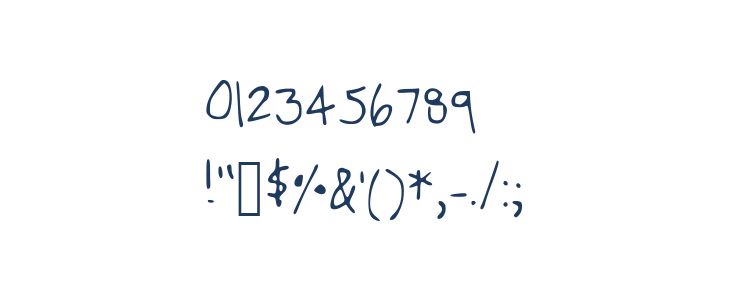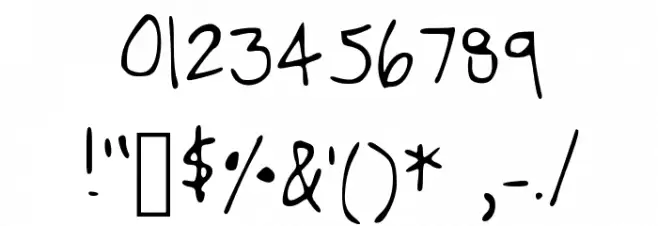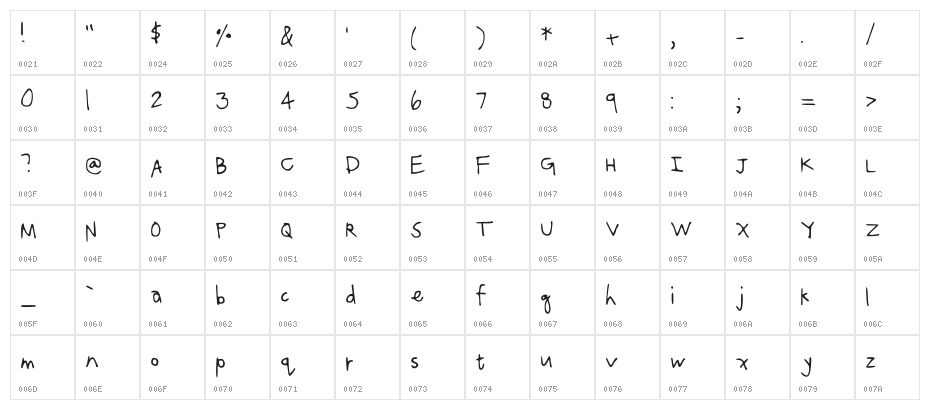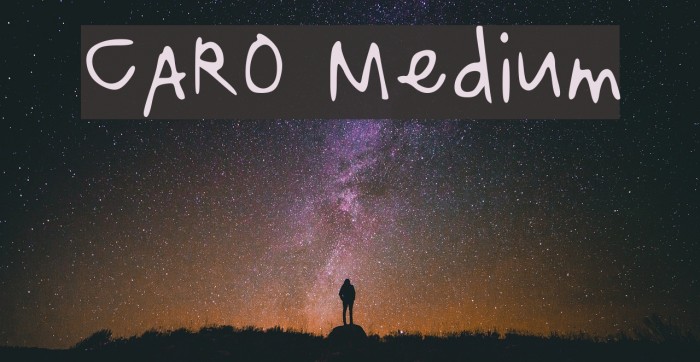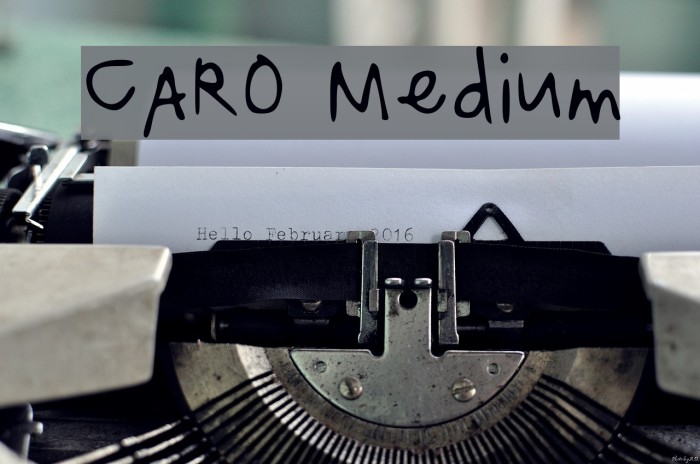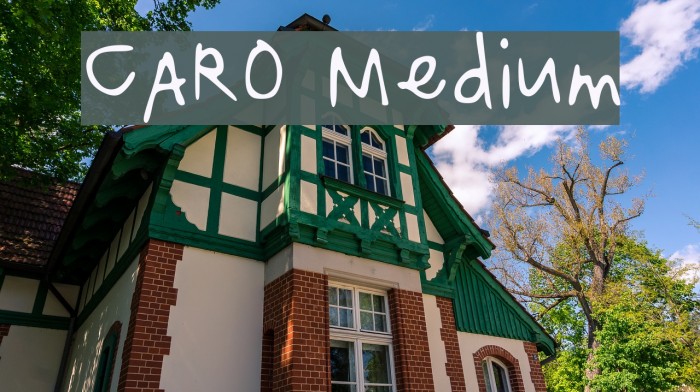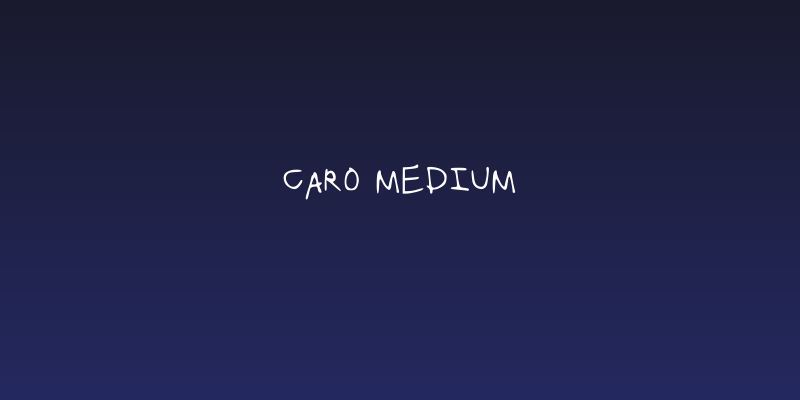
CARO Medium Font
CARO Medium Description
This font features a playful and casual handwritten style, characterized by its irregular strokes and slightly uneven baseline. The letters have a natural flow, mimicking the look of handwriting with a personal touch. The uppercase and lowercase letters maintain a consistent style, with rounded edges and a friendly appearance. The numerals and special characters follow the same informal aesthetic, making the font suitable for projects that require a human and approachable feel. Its legibility is maintained despite the informal style, making it versatile for various uses.
A playful, handwritten font with a casual and friendly style from Handwritten fonts.
- Proposed Projects: Ideal for greeting cards, personal blogs, children's books, and informal branding.
- Overall Style: Casual
- Use Case: Headlines, Informal text, Personal projects